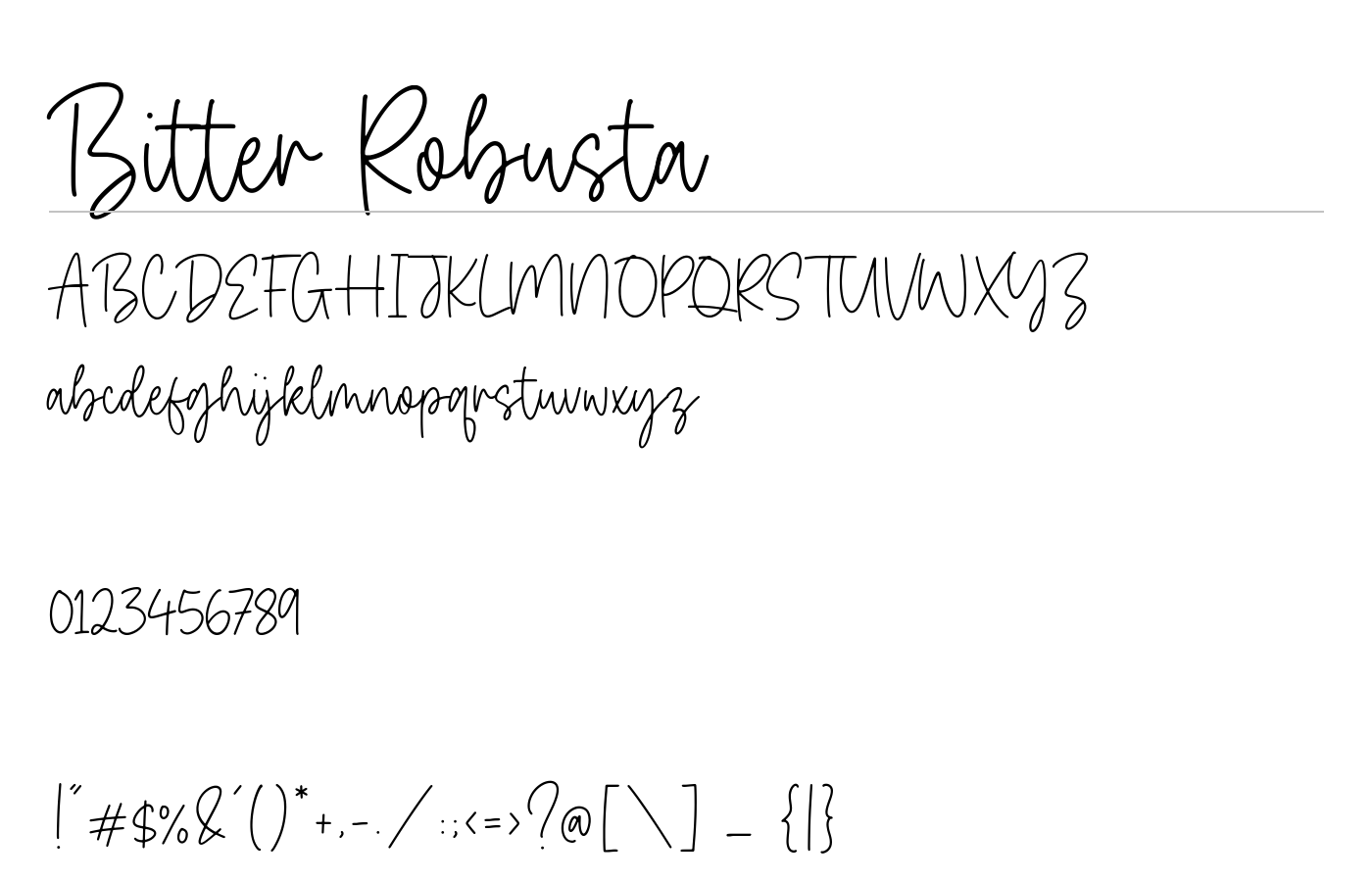
Bitter Robusta is a playful and casual handwritten script font with a light and airy feel, featuring thin, smooth strokes and a balanced mix of uppercase and lowercase letters. Its tall, slightly condensed letterforms and unique quirky details give it a friendly and approachable personality, making it ideal for creative projects, branding, invitations, and informal communication. This font works especially well in designs that seek a personal touch while maintaining readability and charm.
Bitter Robusta Font